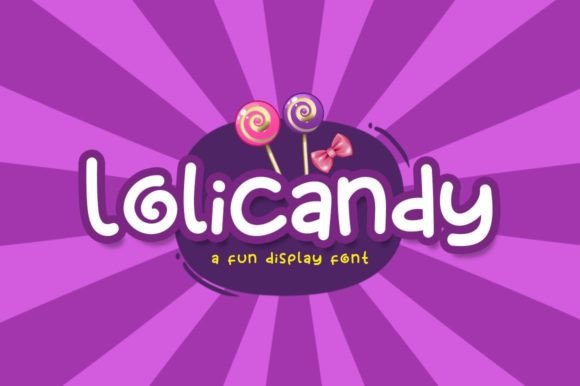
Dive into the realm of creativity with Lolicandy Font, a vibrant display font that sparks imagination and brings life to your digital creations. Step into a world of playful possibilities where words dance with joy, and messages come alive with a touch of whimsy.
Lolicandy Font is an explosion of fun and excitement, perfect for crafting designs that leap off the screen. Unleash your inner child and let your creativity soar with this captivating font that's sure to leave a lasting impression.
Picture this: you're tasked with creating a quote art that captures the essence of childhood wonder. With Lolicandy Font, your words take on a life of their own, transforming into colorful candies that burst with personality. Each letter becomes a sweet treat, inviting your audience to indulge in a visual feast.
Lolicandy Font isn't just limited to quote art; it's a versatile chameleon that adapts effortlessly to a wide range of creative projects. Design eye-catching logos that pop with playful charm, or create enchanting invitations that transport your guests to a world of pure imagination. Unleash your inner artist and let Lolicandy Font guide you on a journey of endless possibilities.
So, why settle for ordinary fonts when you can embrace the extraordinary? Let Lolicandy Font take your designs to new heights of creativity and leave your audience craving more. Dive into a world of captivating designs and let your imagination run wild with this delightful font.